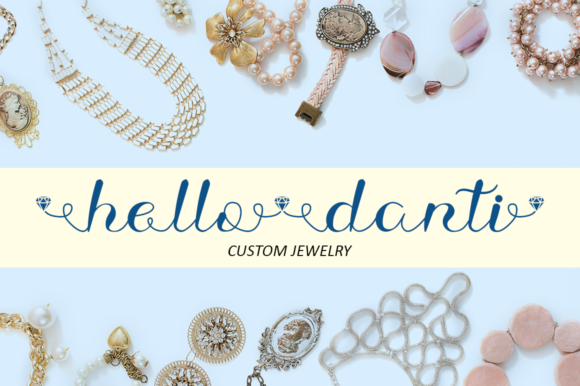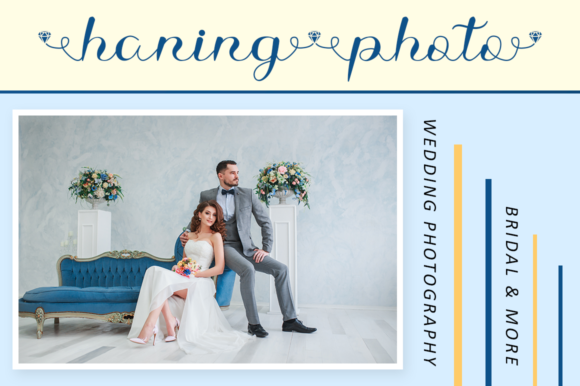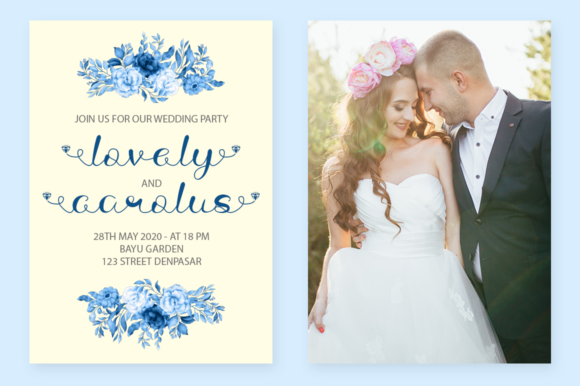
Introduction to Love Moms Diamond Font
As a designer, you’ve likely found yourself in a creative moment where the perfect font can make all the difference. It’s the aha! moment when your design comes together, and you can’t wait to share it with the world. For many of us, that moment is made possible by the right font. And for those who love elegant, whimsical designs, the Love Moms Diamond Font is a game-changer.
This beautiful script font is perfect for adding a touch of sophistication to your creative project, whether it’s a logo, branding, invitation, or social media post. With its transparent background and high-quality design, it’s a valuable resource for designers who want to elevate their work.
Key Features of Love Moms Diamond Font
- Unique Diamond-Shaped Characters: The Love Moms Diamond Font features intricate diamond-shaped characters, adding a touch of elegance to any creative project.
- High-Quality Design Resource: This font is designed with high-quality graphics, ensuring a crisp and clear display on various devices and resolutions.
- Transparent Background: The font includes a transparent background option, allowing for easy customization and integration with other design elements.
- Perfect for Creative Projects: The Love Moms Diamond Font is ideal for use in various creative projects, including greeting cards, posters, and digital art.
Honest Review: Love Moms Diamond Font
As a designer, I’ve had my fair share of working with fonts, and I must say that the Love Moms Diamond Font has been a pleasant surprise. The moment I downloaded it, I was drawn to its high-quality design and versatility.
- Transparency: The font’s transparent background makes it perfect for overlaying on images or using as a design element in creative projects.
- Unique Design: The diamond-shaped design is a great addition to any design project, adding a touch of elegance and sophistication.
While the Love Moms Diamond Font is a great addition to any design library, I do wish it came in more weights and styles. As it is, it’s a bit limited in terms of customization options.
Overall, I’d say the Love Moms Diamond Font is a solid addition to any designer’s toolbox. It’s perfect for creative projects that require a touch of elegance and sophistication. While it has its limitations, I think it’s a great resource to have on hand.
To get the most out of the Love Moms Diamond Font, try pairing it with other elegant fonts and using it for titles and headings. You can also experiment with different font sizes and colors to create a unique look.
The Love Moms Diamond Font is perfect for use in various design projects, including:
- Birthday invitations and cards
- Wedding invitations and decorations
- Personalized gift tags and cards
- Photography captions and quotes
Q: Is the Love Moms Diamond Font suitable for use on digital screens?
Yes, the Love Moms Diamond Font is optimized for use on digital screens, including smartphones, tablets, and computers. The font’s high-quality design ensures that it will display clearly and crisply on various screen resolutions and sizes. Additionally,